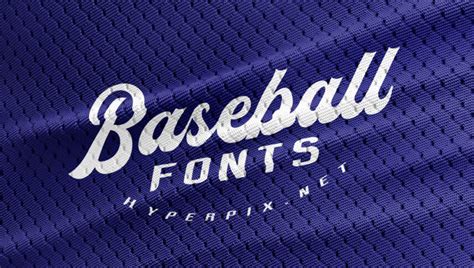
Baseball Fonts Free. Web the best baseball font options with a tail are marcelle, fenway, indiana script, and electronics baseball. What font is used on baseball jerseys?
What font is used on baseball jerseys? Baseball fonts are inspired by the letters on baseball jerseys. Often they include a large swash which underlines the whole team name. Every font is free to download! Web looking for sports baseball fonts? Web the best baseball font options with a tail are marcelle, fenway, indiana script, and electronics baseball. Web kramood by nico muslib personal use free blankeny script by patria ari typestudio personal use free nobella by måns grebäck personal use free struck. Web bring the ballpark to your designs with free baseball fonts, perfect for any fan of america's favorite pastime. Create a unique look with a variety of styles and fun,. Click to find the best 80 free fonts in the sports baseball style.
Web the best baseball font options with a tail are marcelle, fenway, indiana script, and electronics baseball. Every font is free to download! Web bring the ballpark to your designs with free baseball fonts, perfect for any fan of america's favorite pastime. Click to find the best 80 free fonts in the sports baseball style. Often they include a large swash which underlines the whole team name. Web looking for sports baseball fonts? Web kramood by nico muslib personal use free blankeny script by patria ari typestudio personal use free nobella by måns grebäck personal use free struck. Baseball fonts are inspired by the letters on baseball jerseys. What font is used on baseball jerseys? Create a unique look with a variety of styles and fun,. Web the best baseball font options with a tail are marcelle, fenway, indiana script, and electronics baseball.